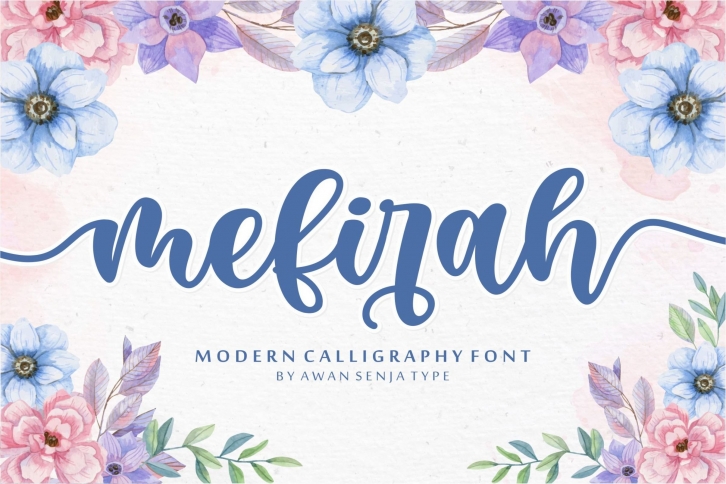
Mefirah is a beautiful font that was designed by Awan Senja. It's a great choice for designers and creatives who need such a font. It was released on August 12, 2020 and the file size is 19.71 MB. Mefirah may give a more youthful, expressive and casual look to your project. It is a very beautiful, refined, elegant, and high-quality font.